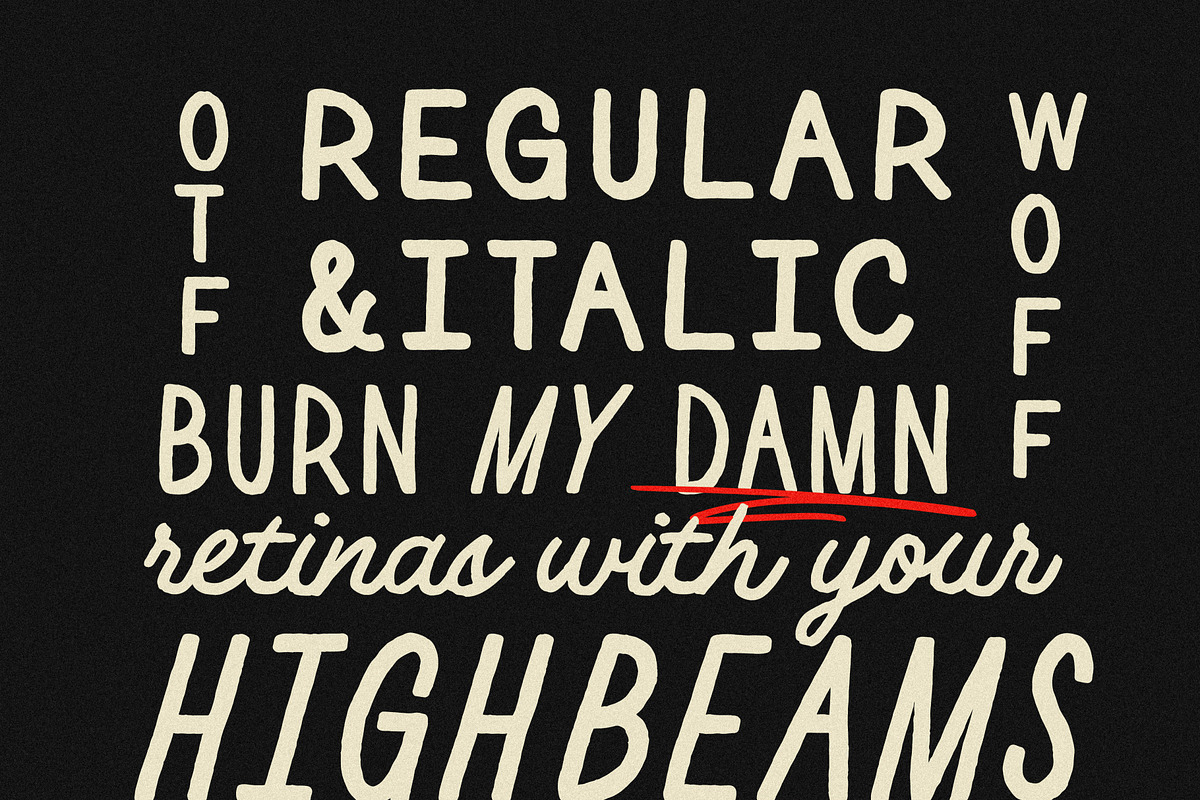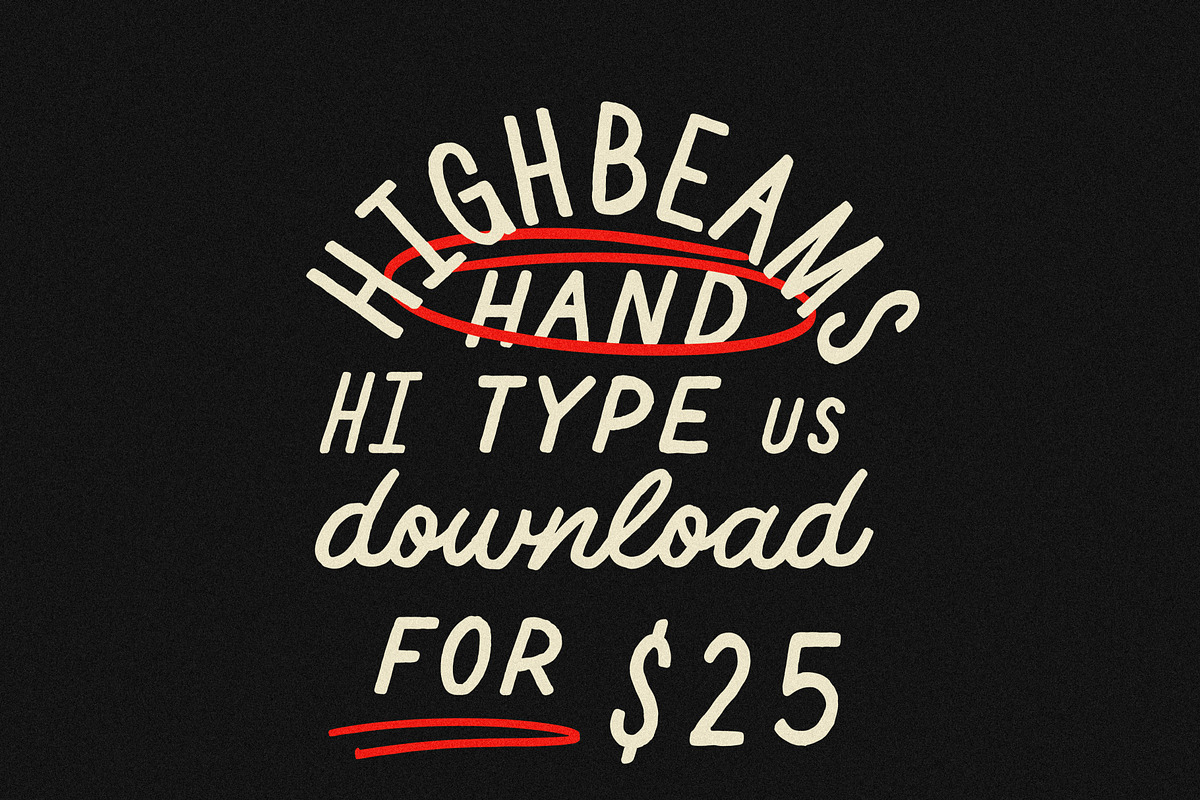
Highbeams
Highbeams was supposed to be clean. Polished. Respectable. But somewhere in the process, I missed the exit, and I didn't notice until I was miles deep.
It's a jittery hand-type with both regular, italics and small-caps baked in. I'd like to think it has the ghost of Jon Contino, just filtered through my poor choices.